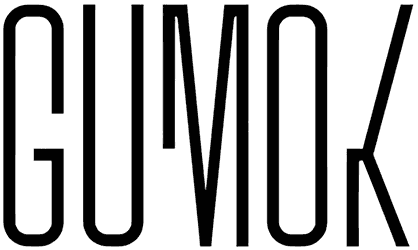
Gumok Font
Gumok is an awesome font that seems memorable to the viewers. This sans-serif font has a charismatic personality and immediately grabs your attention. You may use this minimal font in several situations, such as websites, social media posts, and book covers, although it does not support lowercase letters.
Gumok font’s letters have a minimal style with a thin shape, making it unforgettable. Moreover, they are thin and condensed, creating a pleasant feeling, so give this font a try now.